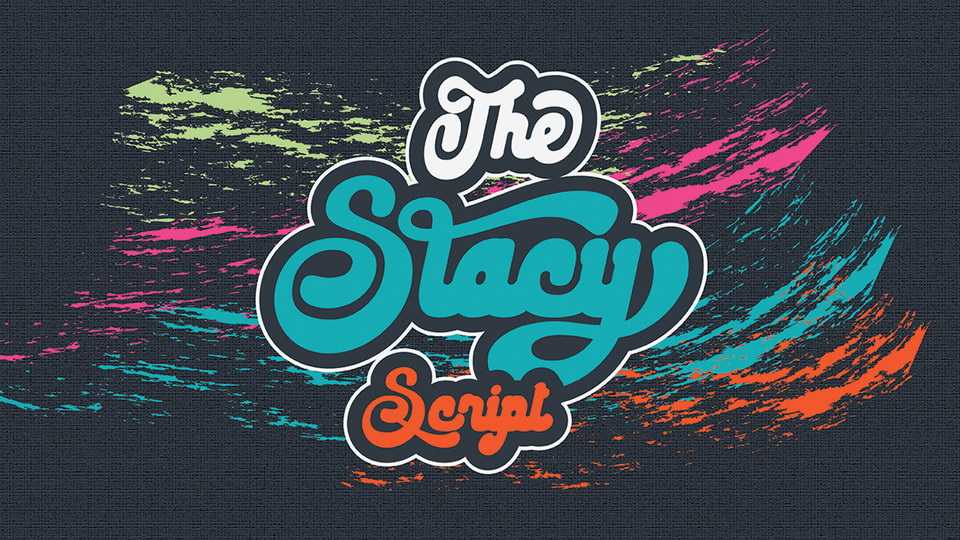
Download The Stacy font, a retro inspired script typeface. The Stacy has a bold character and soft nuances that will make a striking impression on everyone who sees it.
Designer: Riska Kurniawan